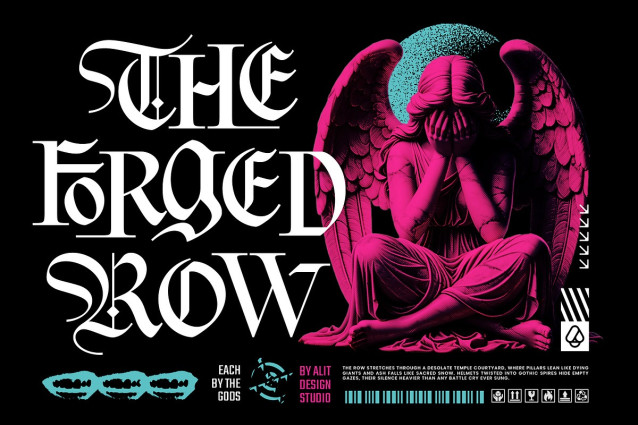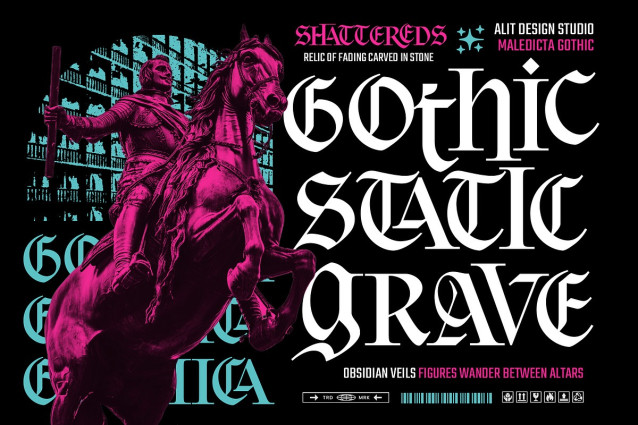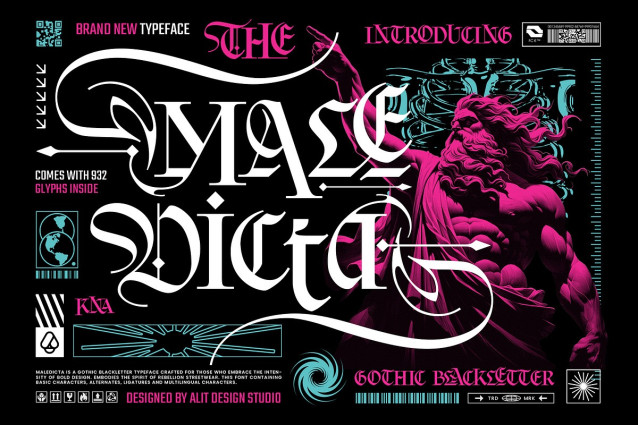
Maledicta Font
Maledicta Font is designed for those who want their message to carry weight, authority, and a touch of mystery.Every stroke of Maledicta is meticulously crafted to balance traditional gothic aesthetics with high-readability. Whether you are aiming for a gritty underground vibe or a premium vintage look, this font provides the versatility needed to stand out in a crowded market.